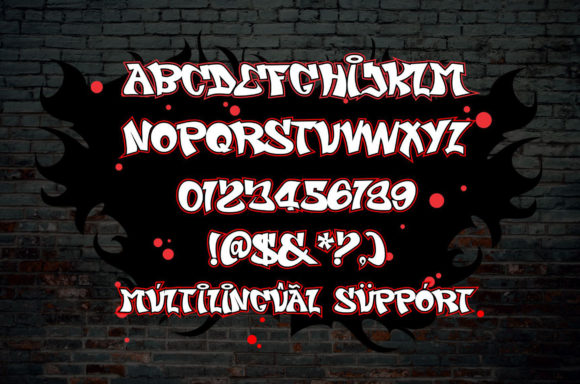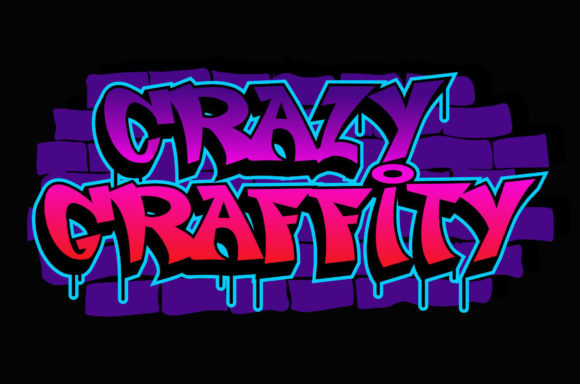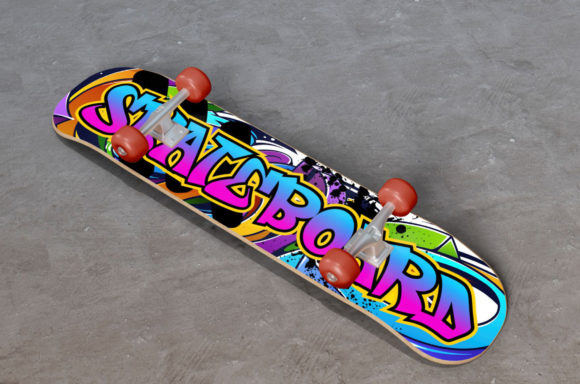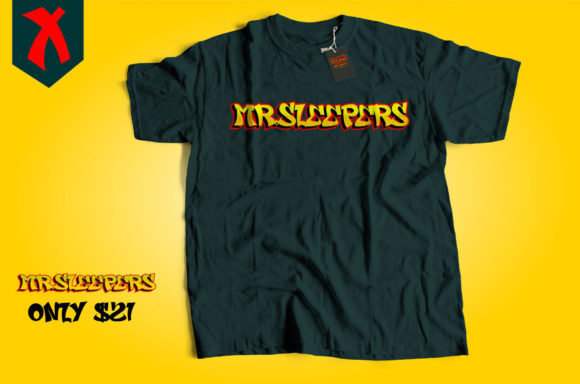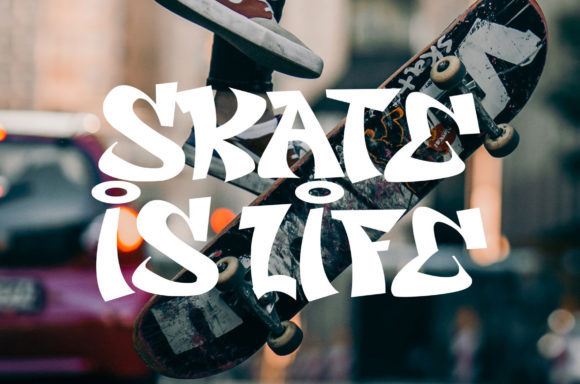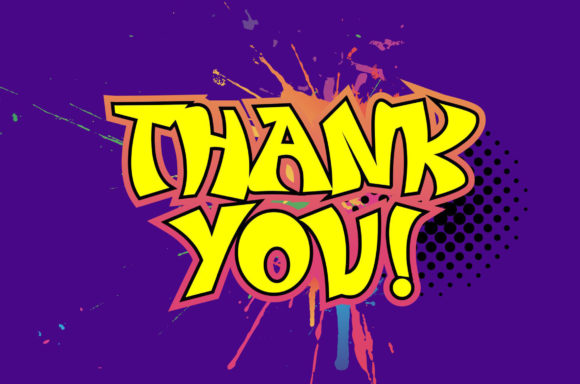
Dastin Toxic Font: Unleash Your Creativity with this Graffiti-Styled Display Font
Are you a designer or crafter looking for a unique and eye-catching font to add a touch of street art to your designs? Look no further than the Dastin Toxic Font. This awesome, graffiti-styled display font is perfect for creating bold and edgy designs that are sure to turn heads. In this article, we’ll take a closer look at the Dastin Toxic Font, its features, and how you can use it to take your designs to the next level.
What is Dastin Toxic Font?
Dastin Toxic is a graffiti-styled display font that has a street art vibe. This font is designed to give your designs a bold and edgy look that’s perfect for a variety of applications, including t-shirts, sportswear, logos, advertisements, clothing, and more. With its unique and distressed lettering style, the Dastin Toxic Font is sure to add a touch of urban flair to any design.
Key Features of Dastin Toxic Font
So, what makes the Dastin Toxic Font so special? Here are some of its key features:
- Graffiti-styled lettering: The Dastin Toxic Font features a unique graffiti-styled lettering style that’s perfect for creating bold and edgy designs.
- Street art vibe: This font has a distinct street art vibe that’s sure to add a touch of urban flair to any design.
- Distressed lettering: The Dastin Toxic Font features distressed lettering that’s perfect for creating designs that look like they’ve been spray-painted on a wall.
- High-quality design: This font is designed with high-quality and clarity in mind, making it perfect for use in a variety of applications.
How to Use Dastin Toxic Font
So, how can you use the Dastin Toxic Font in your designs? Here are a few ideas to get you started:
- T-shirts and apparel: The Dastin Toxic Font is perfect for creating bold and edgy designs for t-shirts, hoodies, and other apparel.
- Logos and branding: This font is also great for creating logos and branding materials that need a bold and attention-grabbing look.
- Advertisements: The Dastin Toxic Font is perfect for creating eye-catching advertisements that need to stand out from the crowd.
- Clothing and fashion: This font is also great for creating designs for clothing and fashion brands that want to add a touch of street art to their designs.
Tips for Using Dastin Toxic Font
Here are a few tips for using the Dastin Toxic Font in your designs:
- Keep it simple: While the Dastin Toxic Font is bold and edgy, it’s still a display font. Keep your design simple and focused to get the most out of this font.
- Experiment with colors: The Dastin Toxic Font looks great in a variety of colors. Experiment with different colors to find the one that works best for your design.
- Use it sparingly: While the Dastin Toxic Font is perfect for headlines and titles, it can be overwhelming to use it for body text. Use it sparingly to create a bold and eye-catching design.
In conclusion, the Dastin Toxic Font is an awesome, graffiti-styled display font that’s perfect for designers and crafters who want to add a touch of street art to their designs. With its unique and distressed lettering style, this font is sure to turn heads. Whether you’re creating designs for t-shirts, logos, advertisements, or clothing, the Dastin Toxic Font is a great choice. So why wait? Download the Dastin Toxic Font today and unleash your creativity!